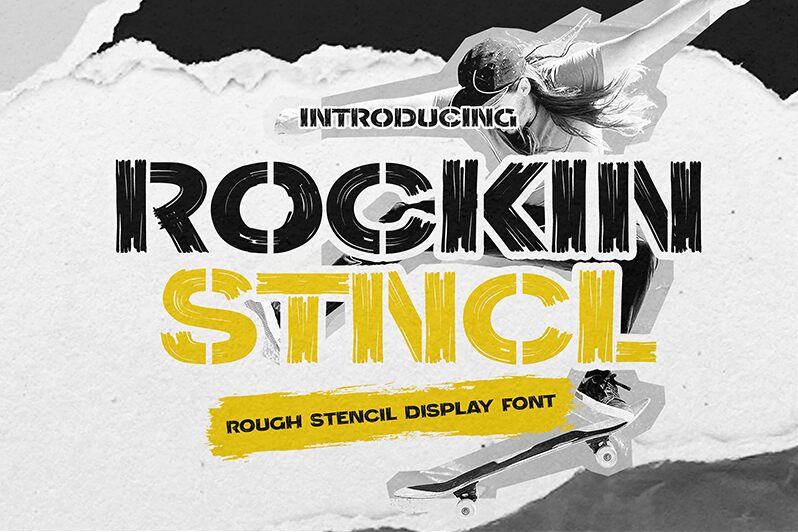
Rockin Stncl font family by Gassstype consists of two impressive styles; a free personal-use family of display brush-styled fonts. The rough texture creates a visually appealing stencil style that conveys an urban aesthetic and contemporary edge while maintaining a rugged, dynamic appearance. The exaggerated corners along the elongated curves build a bold impression for impactful designs. Include a gritty vibe for an industrial feel and convey even the simplest messages.
The energetic display makes this font family perfect for advertising copy in posters and billboard designs with a focus on headings and branding. Extend your skills by using Rockin Stncl in designs for packaging, social media, magazines, or websites, or take it up a notch by using the high-quality styles in branding and logo designs.
The two fonts can be paired together in the same project for exquisite results which can also extend to merchandise designs. Comes as a non-commercial font, you can enjoy Rockin Stncl’s use in personal projects only. Otherwise, you can donate or purchase a license.